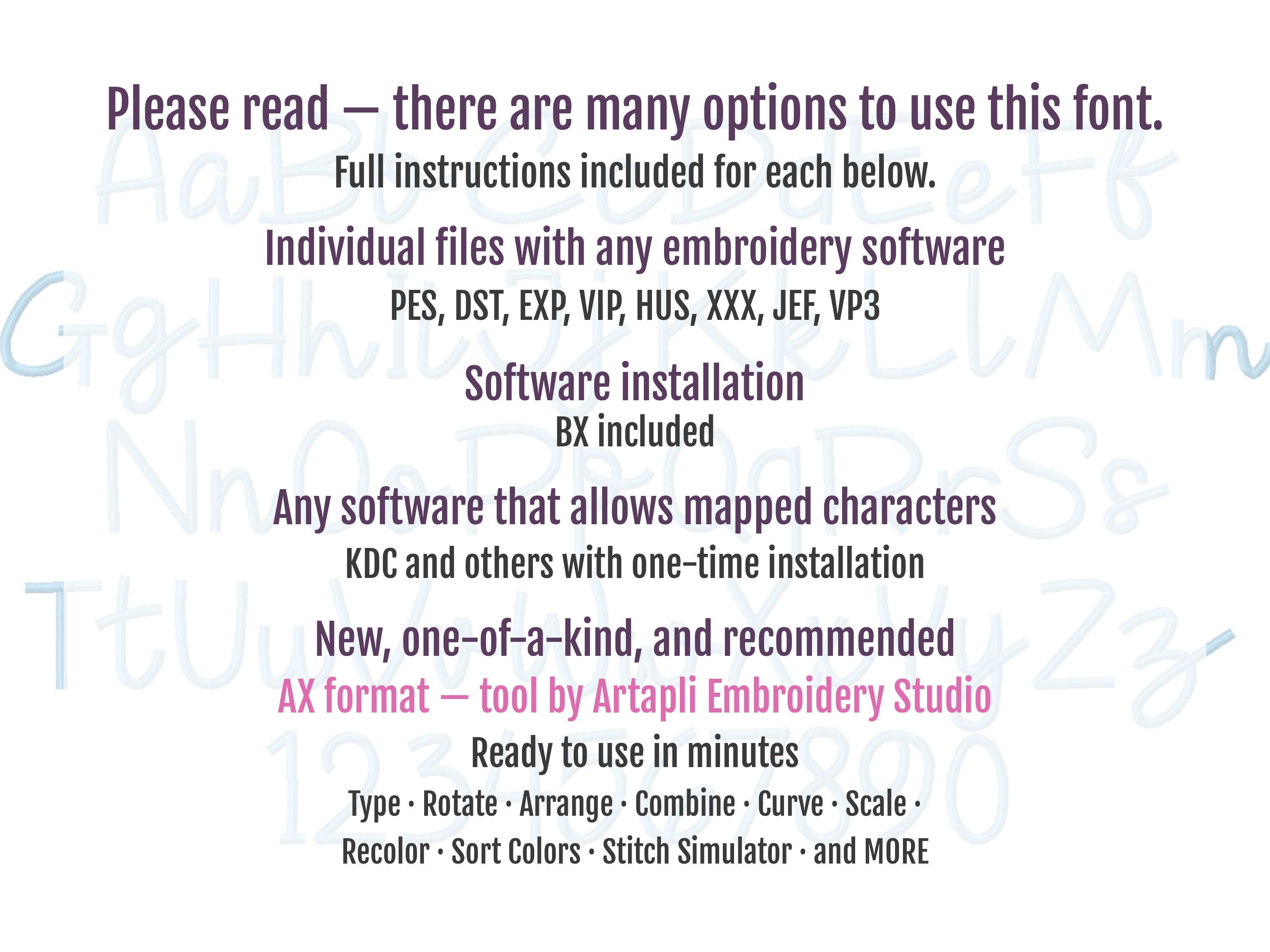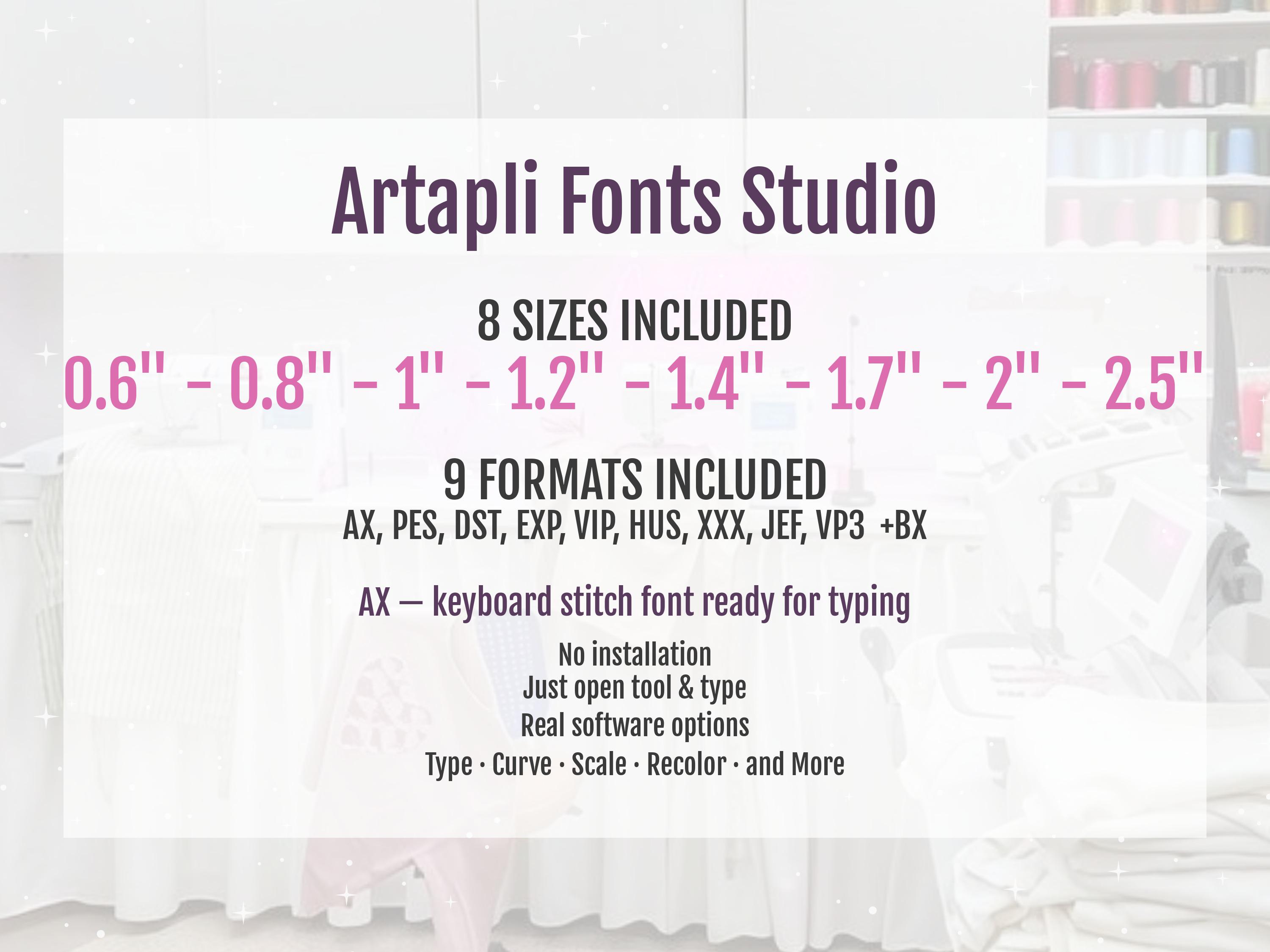
Satin stitch FONT machine embroidery designs in assorted mini sizes alphabet letters, playful kids name satin embroidery, BX included
0.6 inches
0.8 inches